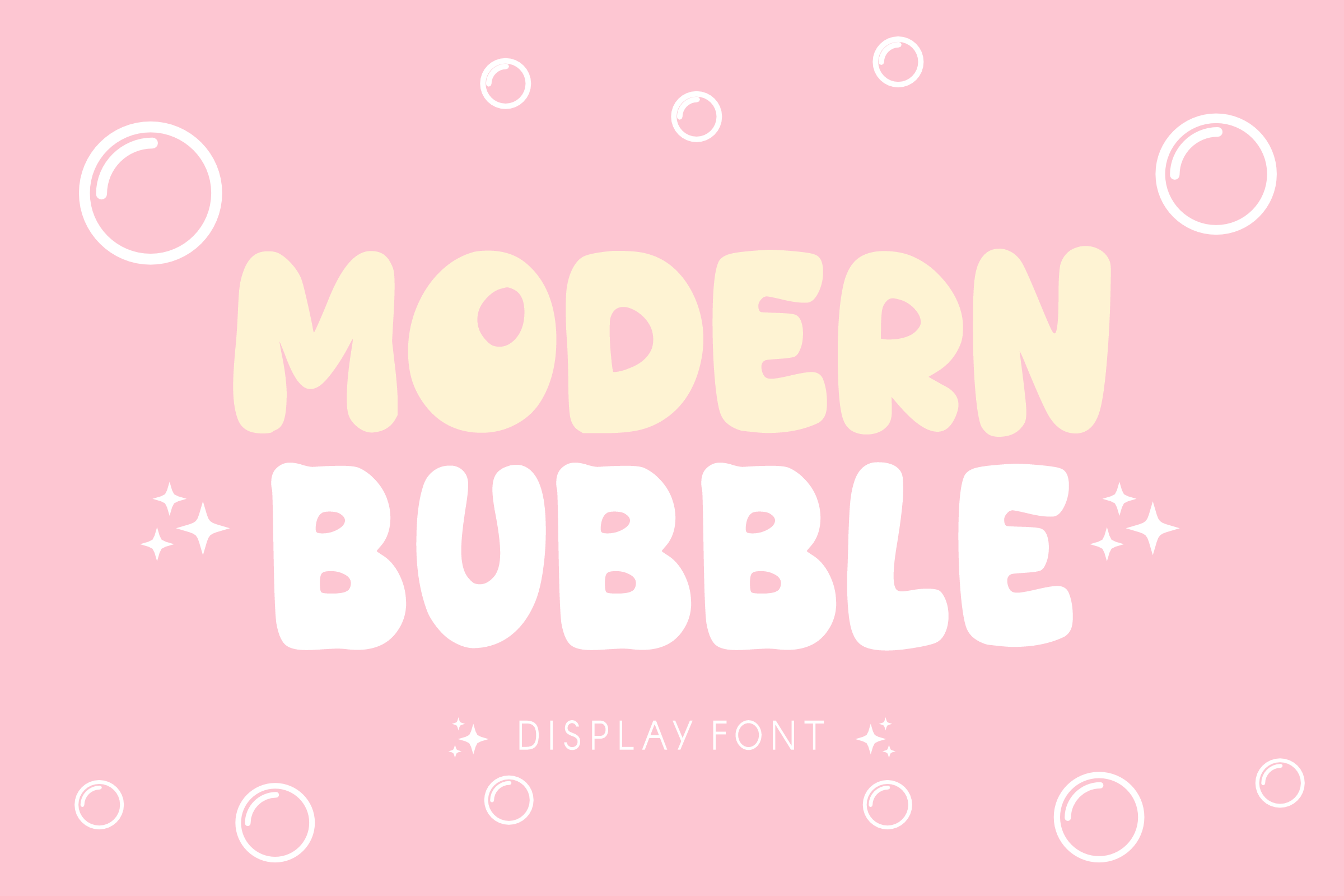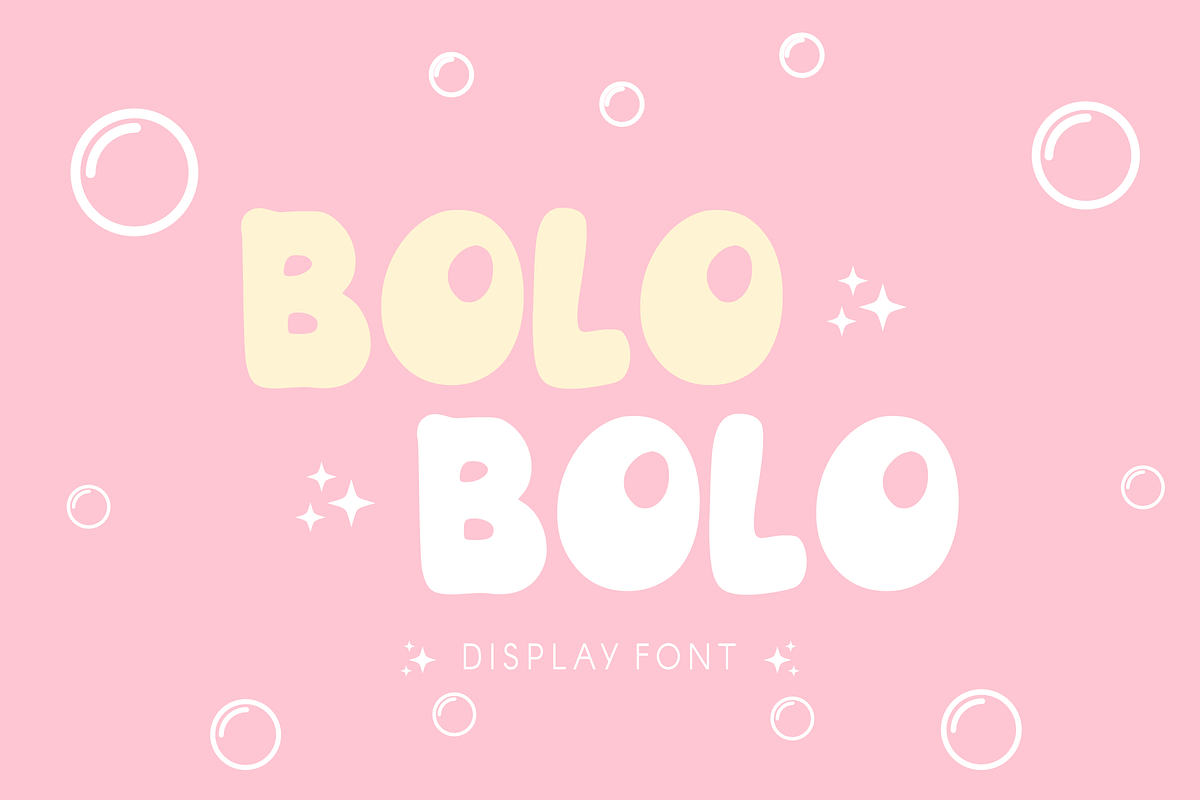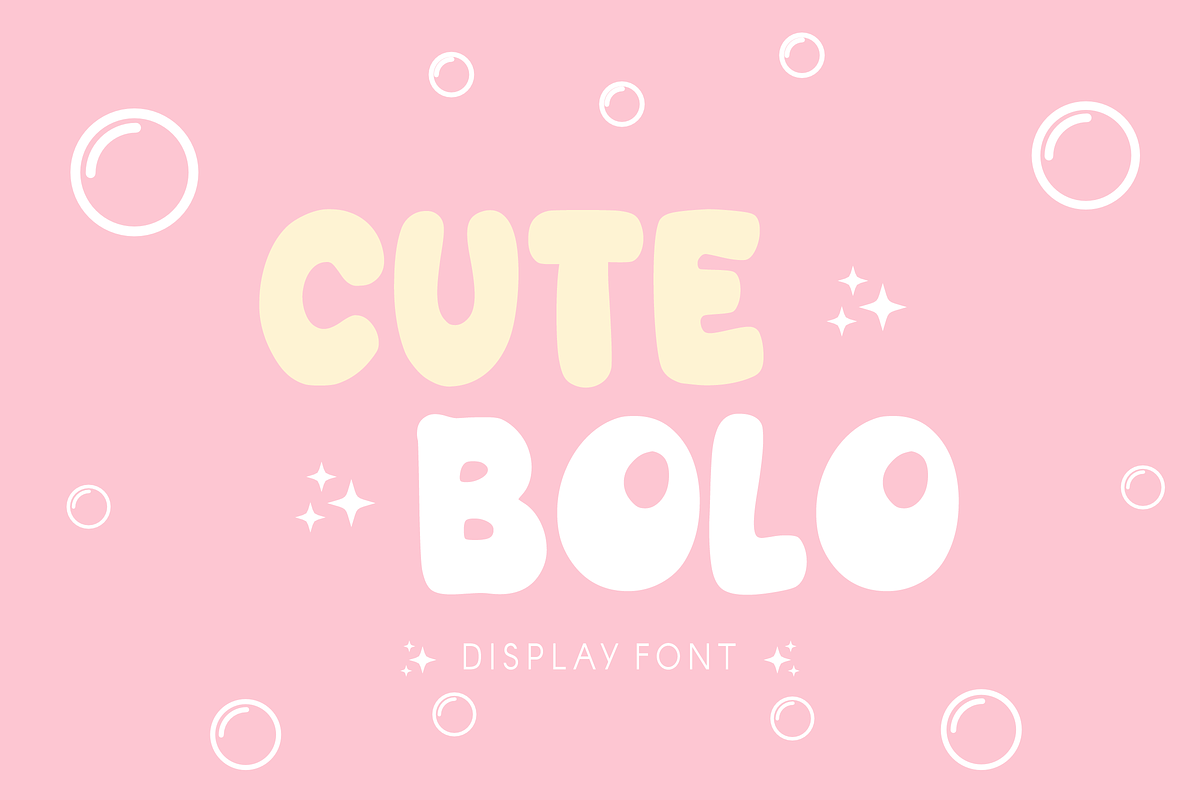
Modern Bubble - Display Font
🫧 Modern Bubble - Clean & Bold Bouncy Font ✨ Elevate your designs with Modern Bubble! This contemporary display font features sleek, ultra-rounded characters with a playful yet minimalist aesthetic. Designed with a clean "sticker-cut" shadow effect, it perfectly balances a fun, bouncy rhythm with a professional, modern finish.
Whether you are building a trendy brand or a vibrant social media campaign, Modern Bubble makes your message look soft, friendly, and effortlessly cool!
🌟 Key Features: 🫧 Chubby Uppercase: Bold, cloud-like letters for high-impact headlines.
🔢 Numbers 0-9: Perfectly matched rounded numerals for all your data.
💫 Simple Symbols: Essential punctuation to keep your designs flowing.
✂️ Sticker Style: Smooth outlines and modern shadows, ideal for print-on-demand and digital assets.
🚀 Perfect For: 🏷️ Modern Branding: Logos for lifestyle brands, pet shops, and kids' boutiques.
📱 Content Creation: Clean YouTube thumbnails and aesthetic Instagram quotes.
🧸 Kids & Baby: Nursery decor, milestone cards, and chic baby apparel.
🎂 Events: Modern birthday invitations and stylish party banners.
🛍️ Packaging: Eye-catching labels for snacks, toys, or beauty products.
Get that perfect "pop" of personality with the Modern Bubble font!